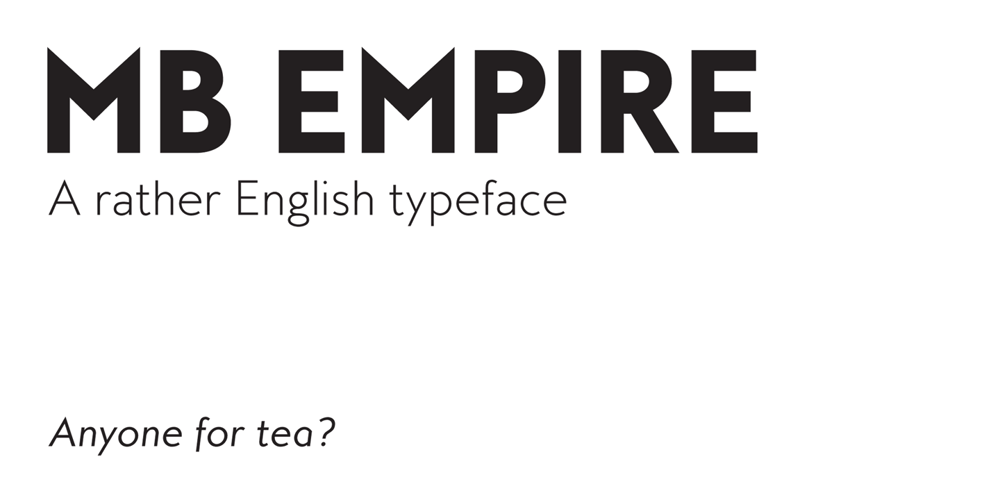
MB Empire
MB Empire font
MB Empire Font Family was designed by Ben Burford and published by Ben Burford Fonts. MB Empire contains 12 styles and family package options. MB Empire is a font that like MB vintage has its roots in early 20th century design, It has a distinctly english feel with its style references to the classic Gill Sans. It has a very traditional look whilst still maintaining its own modernist individuality. It comes in six weights with italics and has extended language support. With many opentype features including oldstlye & lining figures, automatic fractions and more its a font family that will work for almost any application.